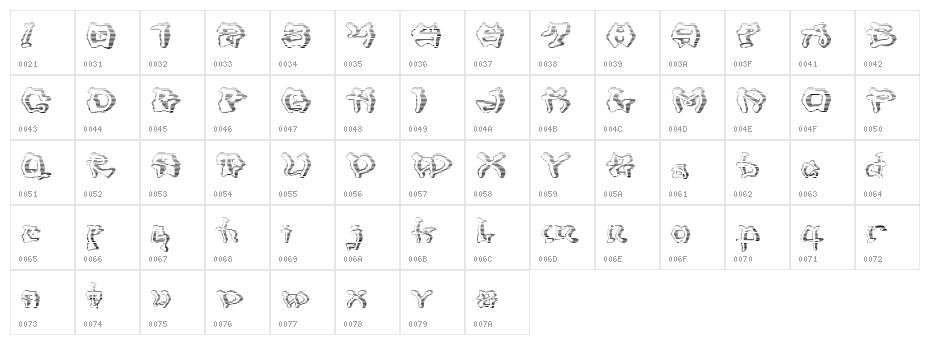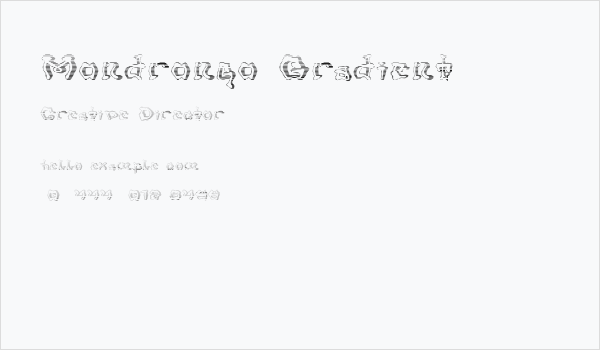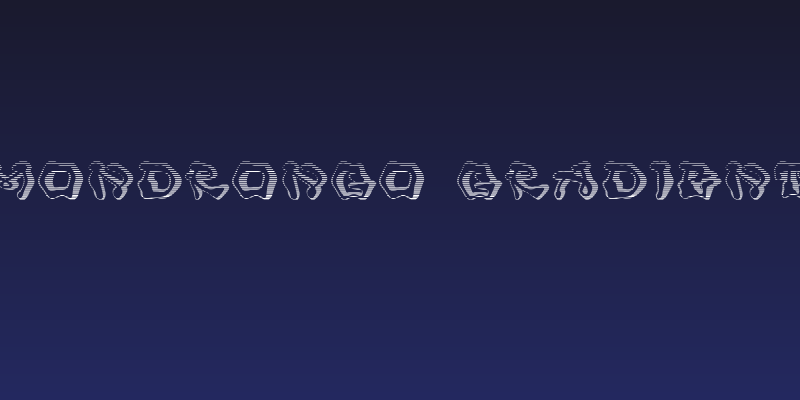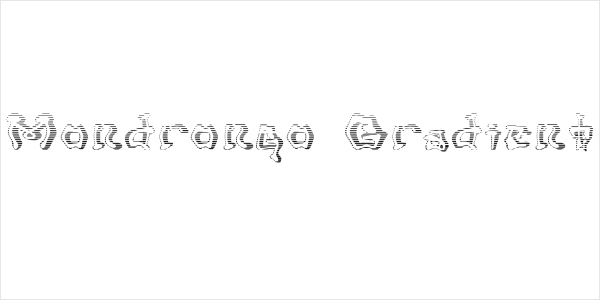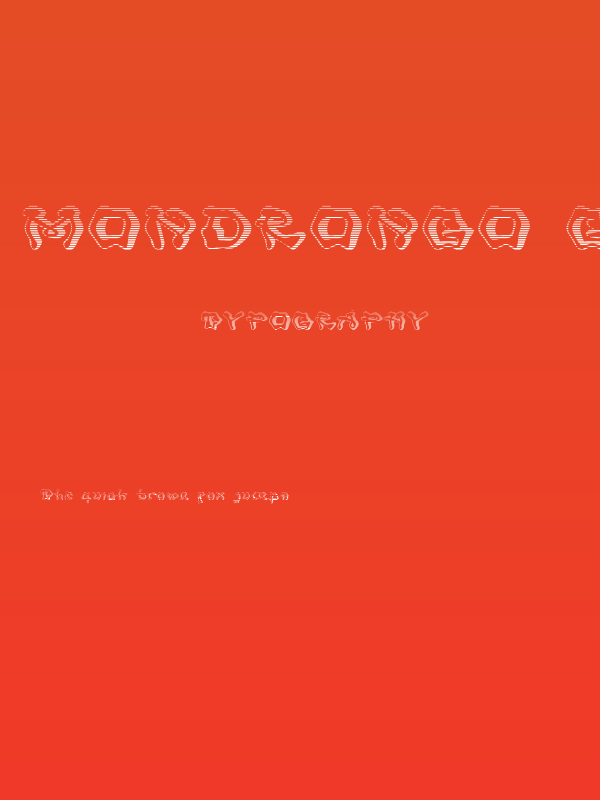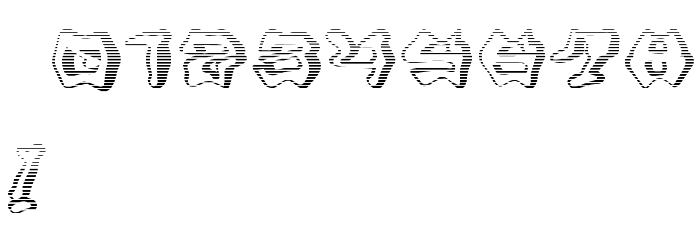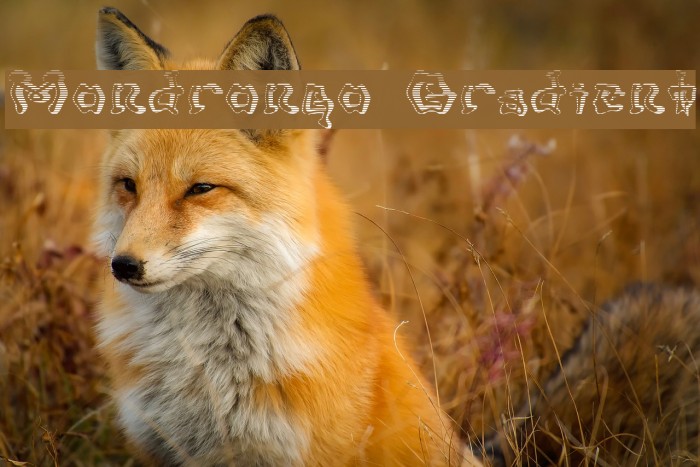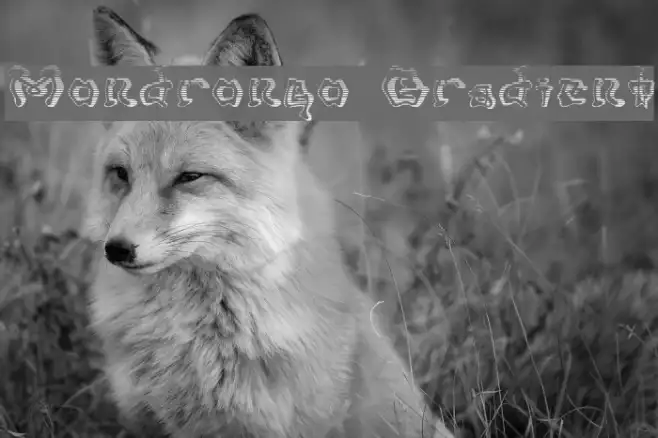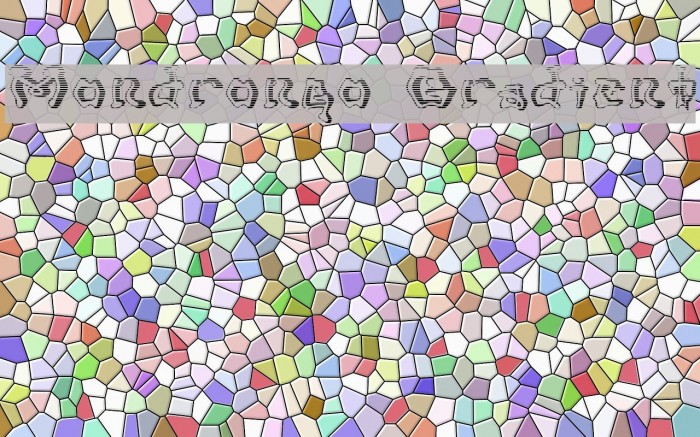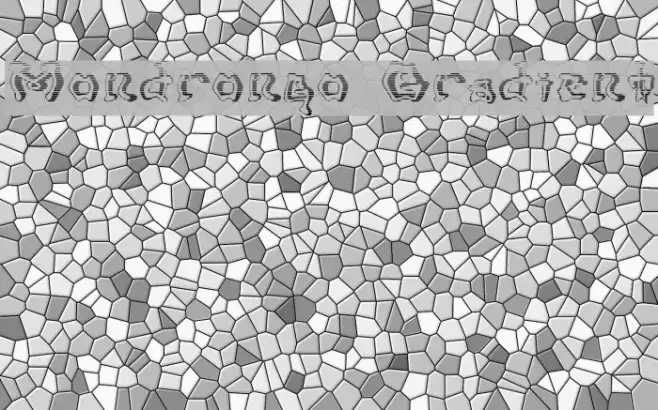
Mondrongo Gradient Font
Mondrongo Gradient Description
This font features a unique and artistic design with a gradient effect that gives it a three-dimensional appearance. The characters are bold and have a distinct, wavy pattern that creates a sense of movement and depth. The uppercase and lowercase letters maintain a consistent style, with each character exhibiting a playful yet structured form. The numbers and special characters follow the same design principles, ensuring uniformity across the font. This font's creative and dynamic style makes it suitable for projects that require a standout visual impact.
| Proposed Projects | Ideal for posters, album covers, branding materials, and any design needing a bold, artistic touch. |